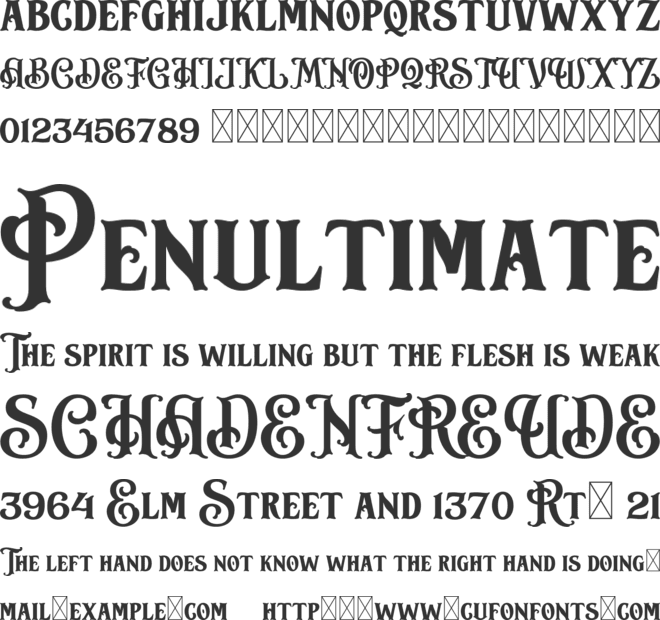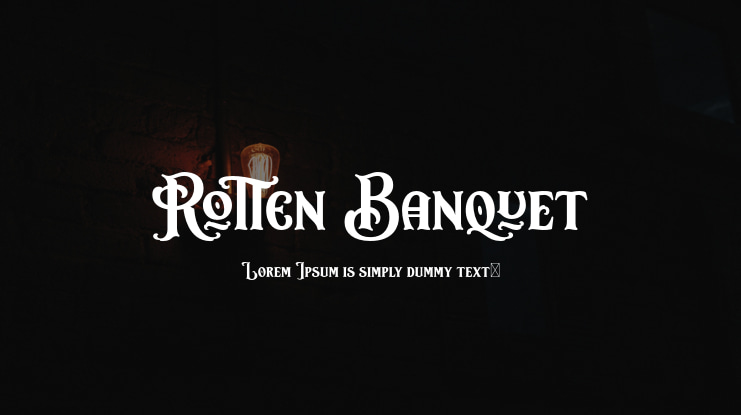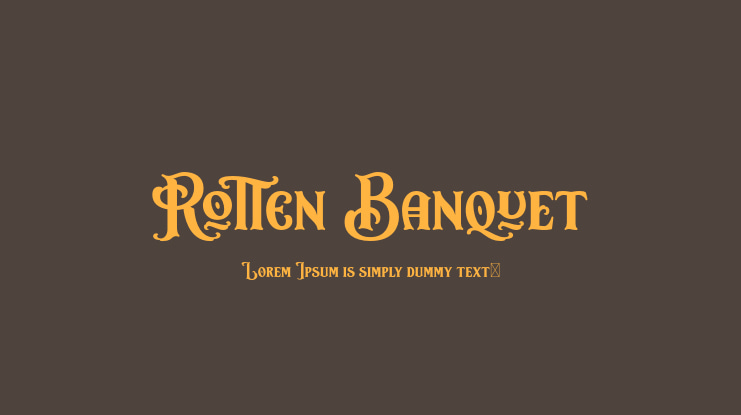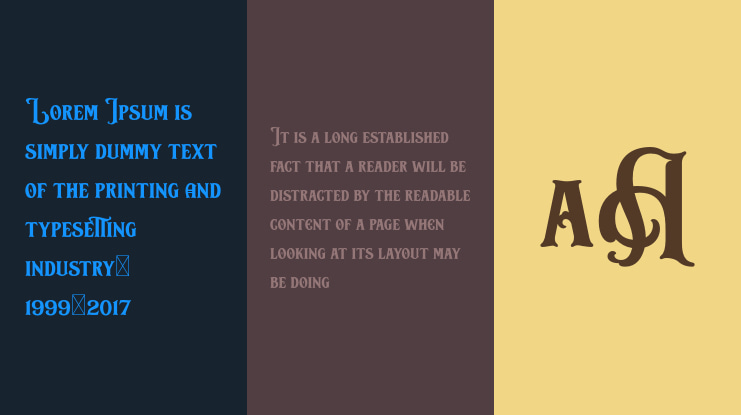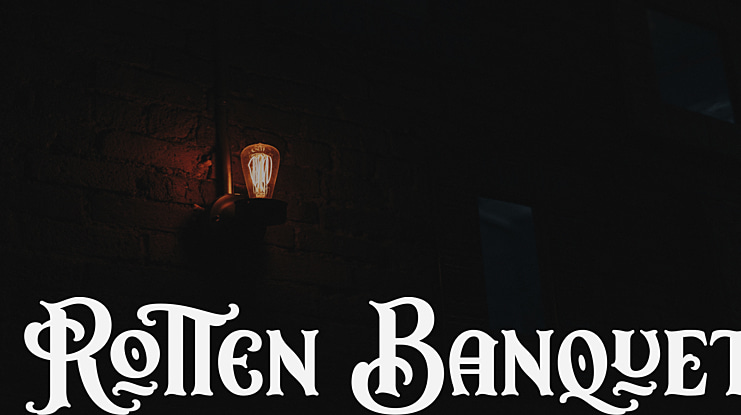
Rotten Banquet Font
Introducing Rotten Banquet, our first victorian display font. This font inspired by 1800s typography design with some modern touch at it. We made this font without too much swashy efefct on the letterform. Just gave it two bold ripple floral effect at the tail is enough. So this font will more readable and not too complicated thus you could make any kind of projects with this font. In the preview we give you a sample ideas. We made it with one style design for the continuity but of course you could make your own style display for your own project purposes. This font contained with 370+ total glyphs. Each uppercase and lowercase have their own stylistic alternate at least one.